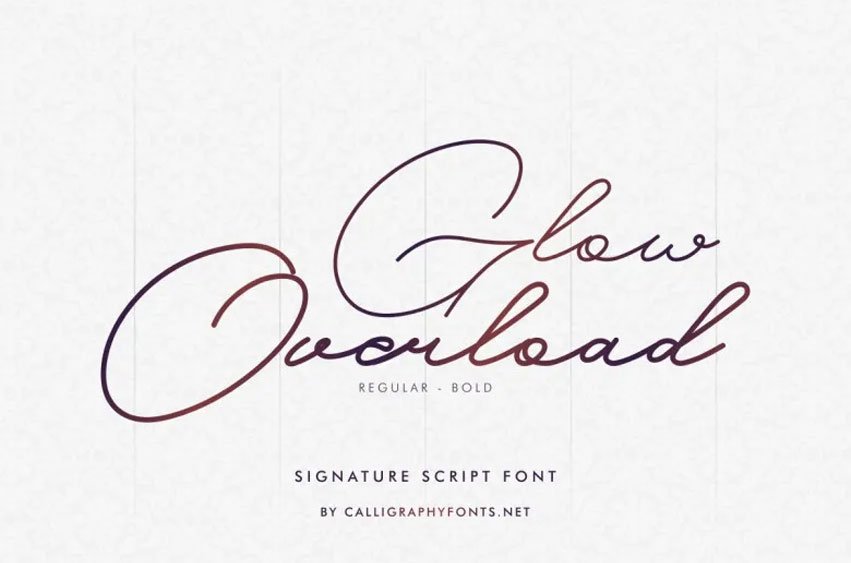
Glow Overload Font is a beautiful and professional handwriting script font with unique handwritten look and the modern, luxurious touch.
Glow Overloadis’ styles include smooth strokes, natural brush strokes, and swift lines; its themes include simplicity, contemporary luxury, handwritten letters in simple but elegant font; suitable for branding, apparel packaging for products, quotes or any other product that needs an uplift in typographical appeal.